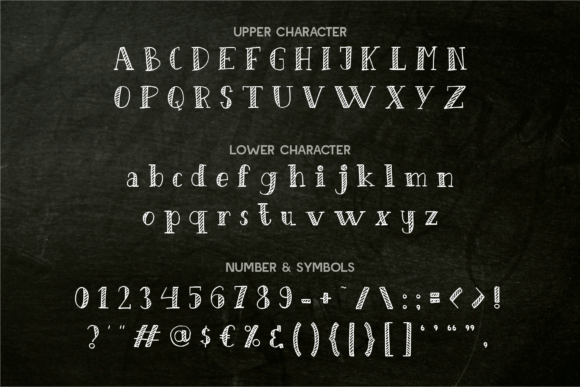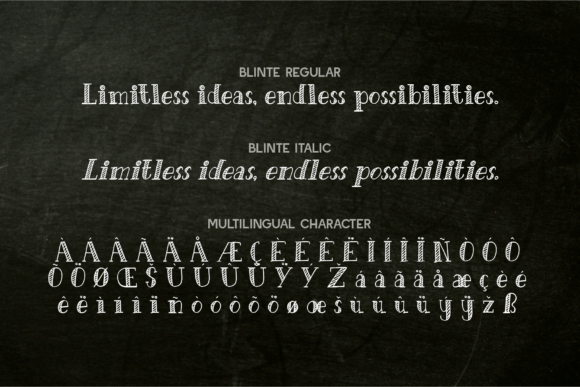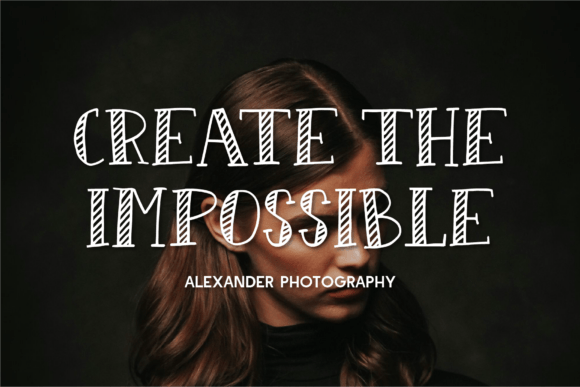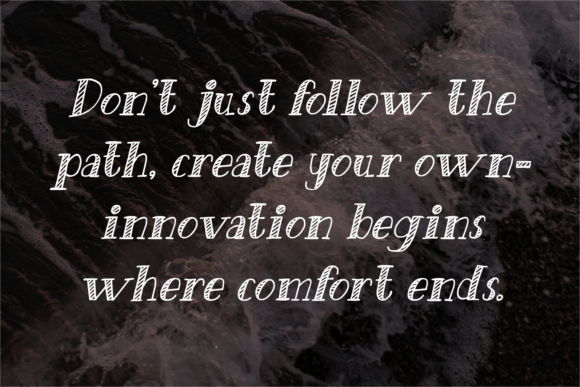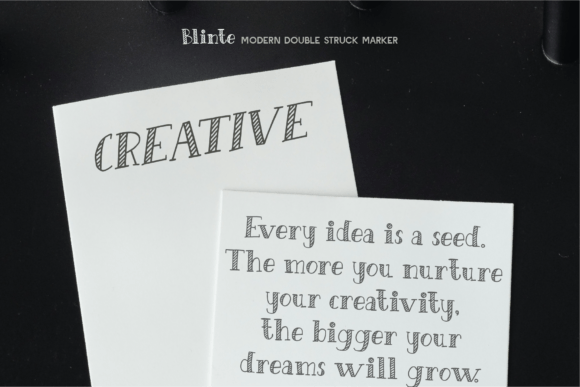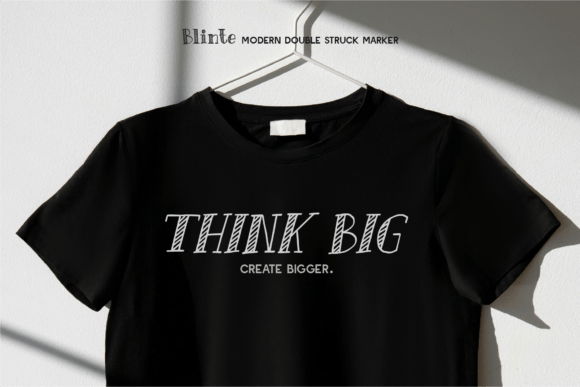
Discover the Perfect Blend of Fun and Functionality
Remember the moment when you stumbled upon that one font that made your design project truly pop? For many of us, that moment is what drives our creative journey. It’s the spark that ignites our imagination and inspires us to push the boundaries of what’s possible. And for designers seeking that special something, Blinte Font is the perfect catalyst.
Blinte Font is a modern double-struck marker font designed to radiate creativity and charm. Its bold, outlined letterforms with diagonal hatch fills give it a hand-drawn yet polished appearance, making it a versatile choice for a wide range of design projects. Whether you’re creating educational materials, vibrant posters, or bold branding, Blinte Font ensures your work stands out.
As a designer, you know the value of finding the right font to elevate your project. Blinte Font offers a unique balance of casual and structured aesthetics, making it a go-to choice for those looking to infuse their work with energy and originality.
Designer Review: Blinte Font
Overall, I was quite impressed with the Blinte Font. It has a unique and modern look that can add a touch of sophistication to any design project. ✨ The font’s clean lines, geometric shapes, and subtle nuances make it a great choice for branding, digital products, or editorial content.
Overall, I think the Blinte Font is a solid choice for designers looking for a modern and versatile font. While it has some limitations, its strengths make it a great addition to any design project. With a bit of creativity and experimentation, I’m confident that designers can unlock the full potential of this unique font.